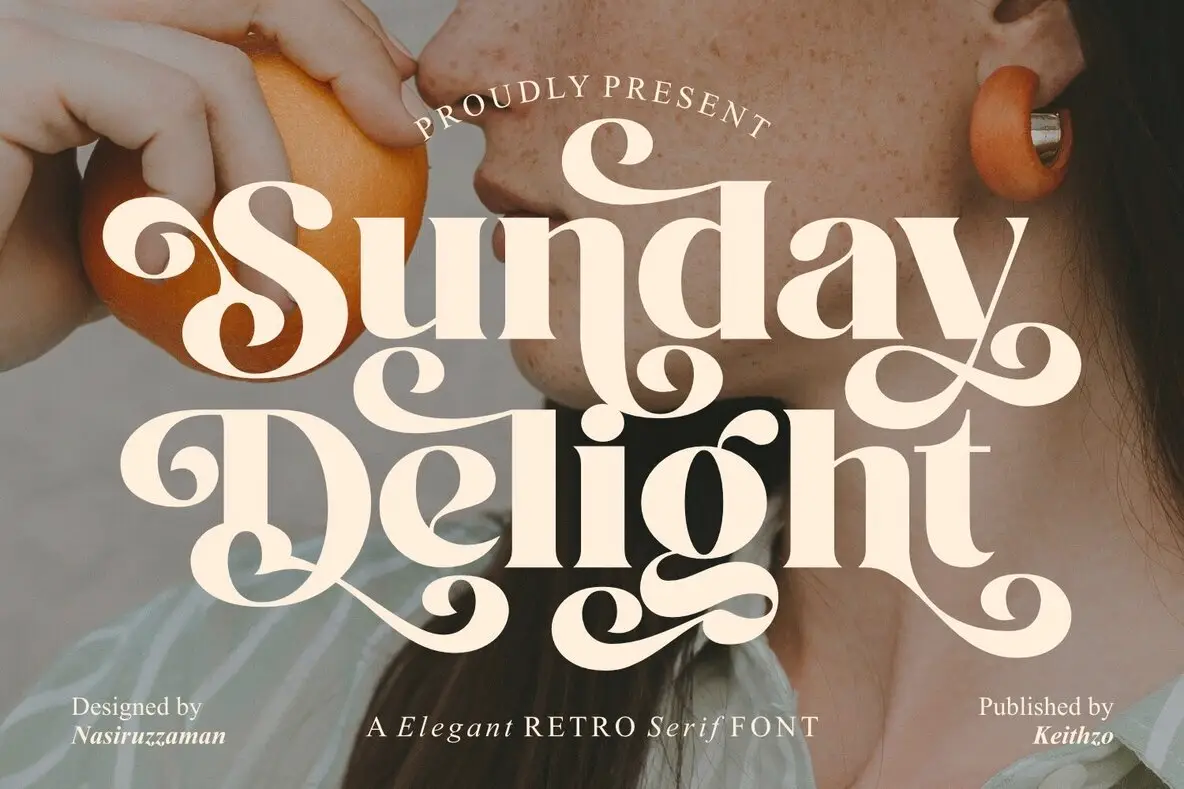
Sunday Delight Font
Sunday Delight
Step back in time with Sunday Delight, a playful, vintage-inspired serif that breathes life into your designs. With its nostalgic charm and swash-style flair, this font adds an antique touch that makes any creative idea stand out. Whether you're reimagining brand identities or crafting striking packaging, Sunday Delight delivers versatility and allure. Its alternative characters offer added diversity, making your projects even more dynamic. With comprehensive language support, Sunday Delight includes uppercase, lowercase, numbers, and punctuation, ensuring you have all the essentials. Its PUA encoding grants effortless access to every glyph and swash, streamlining your design process. Let Sunday Delight infuse your work with its charismatic retro vibe and watch your creative visions come to life.Sunday Delight: Vintage Elegance Redefined